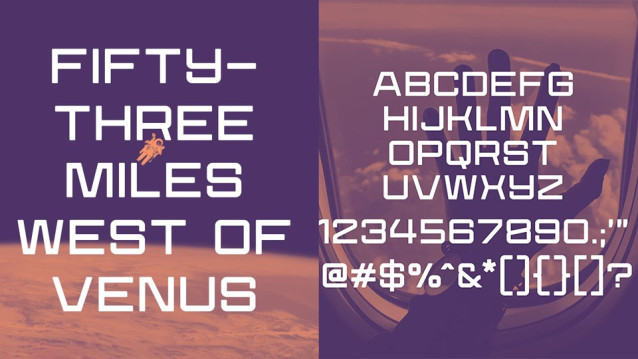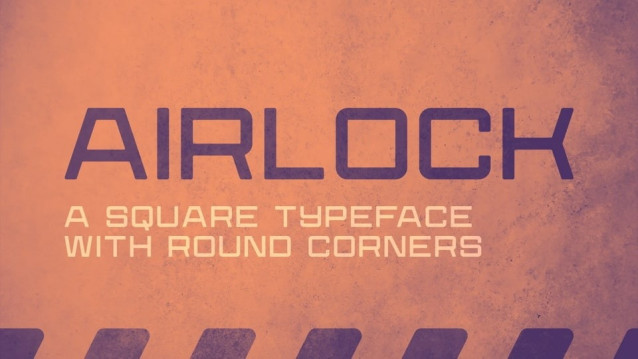
Airlock Font – A square, space race inspired font designed by Edward Batkins. This font is suitable for use as a headline or title for magazines, print publications, posters, web fonts, etc.
Airlock Font
Airlock